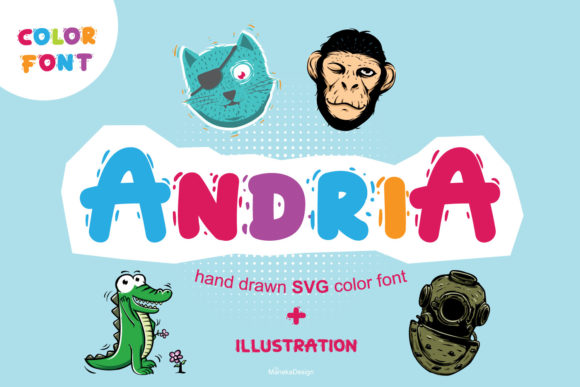
**Introducing Andria: The Font That Packs a Punch on Display Boards!**
Get ready to turn heads with Andria, the ultimate display font crafted with bold and playful letters. Designed by the renowned Maneka, this font is a masterpiece that will elevate your designs to new heights.
Unleash your creativity with Andria's PUA encoding, granting you effortless access to an array of captivating glyphs and ligatures that will add a touch of whimsy to your projects. Andria's vibrant and childlike charm makes it the perfect choice for designs that cater to the young and the young at heart.
Imagine your display boards bursting with color as Andria's letters dance across them, captivating the attention of all who lay their eyes upon them. This font's ability to evoke joy and ignite smiles will leave an unforgettable impression on your audience.
Whether you're creating posters, invitations, or any other visual masterpiece, Andria will effortlessly add a touch of magic to your designs. Its playful nature will bring a sense of wonder to your creations, while its bold presence will demand attention from afar.
Join the ranks of design enthusiasts who have embraced Andria's charm. Let your imagination soar as you craft eye-catching designs that will leave a lasting impression. Andria is the key to unlocking the potential of your display boards, transforming them into captivating canvases that ignite joy and inspire creativity.